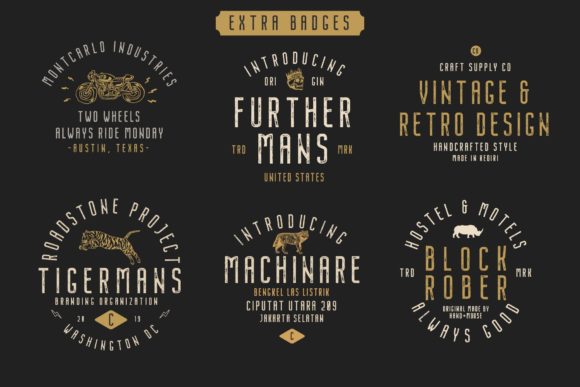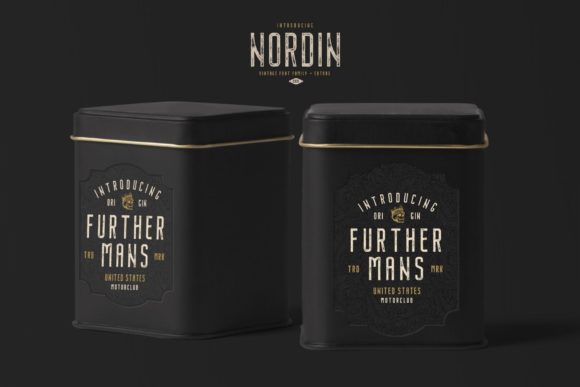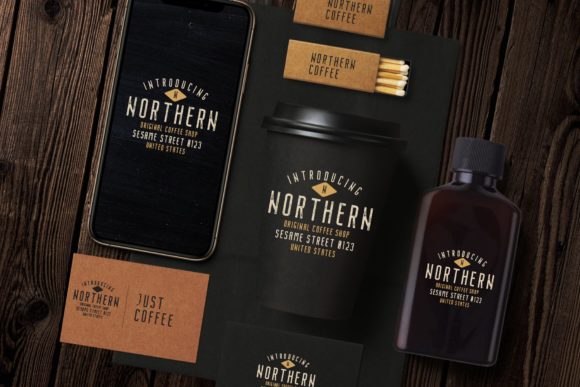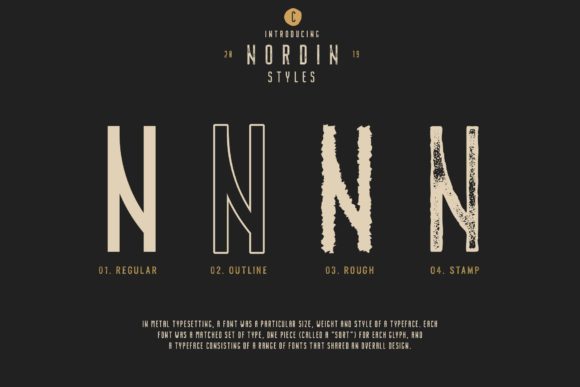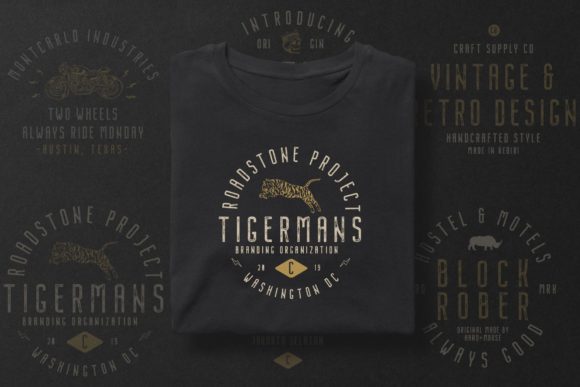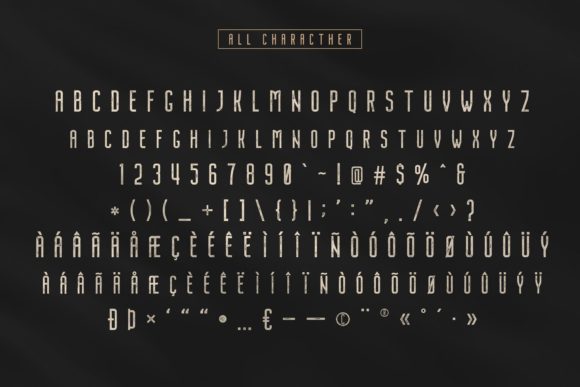
Introduction to Nordin Family Font
The Nordin is a striking font family.
It comes in a regular, stamp, outline, and rough version which can be combined perfectly but are also great as strong stand alones It can be used to create almost all types of design projects.